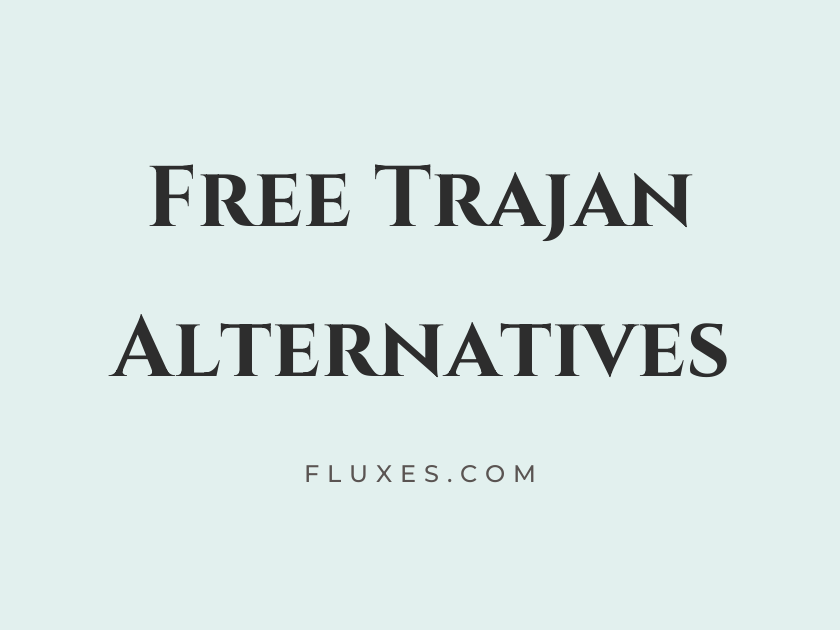
15 Best Free Fonts Alternatives to Trajan
Trajan has anchored a certain kind of visual authority since Adobe first digitized the letterforms cut into the base of Trajan’s Column in Rome nearly two thousand years ago. It shows up on movie posters, wedding invitations, wine labels, university seals, and any design that needs to feel monumental, formal, or carved in stone. Because Trajan itself is a paid Adobe font, designers searching for free alternatives on Google Fonts have a genuinely strong shortlist of classical, inscriptional, and small-caps serif faces that capture the same gravitas without the license fee.
1. Cinzel
Carved in stone, honored through the ages
Cinzel is the closest thing Google Fonts has to a direct answer to Trajan. It was drawn with the same Roman square capital inscriptions in mind, so the proportions, the flared terminals, and the sense of weight are all there. Use it for movie-style titles, diplomas, monograms, or anywhere you need that unmistakable chiseled-in-marble authority.
2. Cinzel Decorative
An empire's legacy, etched for eternity
This is Cinzel’s more theatrical sibling, adding curling swashes and ornamental flourishes to the same classical skeleton. It works best in small doses, a drop cap, a crest, a single line on a wine label, rather than full paragraphs where the decoration can overwhelm the message.
3. Marcellus
Elegance inscribed in every letterform
Marcellus trades the heavy stone-cut drama of Trajan for something calmer and more wearable at everyday sizes. The strokes are even and restrained, which makes it a favorite for boutique branding, spa menus, and invitations that want classical polish without shouting about it. It pairs comfortably with a plain sans body text for contrast.
4. Marcellus SC
THE ARCHITECTURE OF ANCIENT ROME
Marcellus SC
Set Marcellus’s letters in small caps and you get something that reads almost exactly like a formal Roman inscription shrunk down for a book title page. It suits certificates, museum signage, and any header where every letter needs equal, dignified weight.
5. Cardo
A scholarly serif built for classical texts
Cardo grew out of classical philology, designed originally for scholars typesetting Greek, Latin, and Hebrew alongside English. That heritage shows in its sturdy, old-style forms, which lend real credibility to academic papers, historical publishing, and legal documents that need to feel serious rather than decorative.
6. Italiana
Timeless luxury, refined beyond measure
Italiana is thin, tall, and unmistakably upscale, the kind of face you reach for on a perfume box or a five-star hotel’s signage. It has less of Trajan’s bulk but a similar sense of ceremony, and it looks best set large with generous letter spacing rather than crammed into small print.
7. Prata
Distinguished serifs for distinguished occasions
Prata brings a touch more contrast between thick and thin strokes than most of this list, giving it a slightly more modern editorial feel while still nodding to classical proportions. It reads well on book covers and title slides, though it can turn muddy at very small sizes, so save it for headlines.
8. Forum
MONUMENTAL LETTERING FOR GRAND STATEMENTS
Forum
Forum is wide, confident, and unapologetically monumental, closer in spirit to the bold width of ancient Roman signage than the more delicate Trajan revivals on this list. It suits posters, plaques, and any headline that needs to fill space with authority.
9. Bellefair
Ancient inscriptions reimagined for today
Bellefair
Drawing on both Roman and Greek lettering traditions, Bellefair has a slightly warmer, more human touch than the strictly geometric alternatives here. It works nicely for editorial headers and book titles where you want history without austerity.
10. Quattrocento
Solid roman letterforms with lasting presence
Quattrocento
Quattrocento is sturdier and more workaday than the display-oriented faces on this list, which makes it a practical choice when you need Trajan’s classical dignity to extend into body copy or subheads. It was designed as a companion family, so it pairs naturally with its own sans counterpart for a two-font system.
11. Alegreya SC
A CLASSICAL VOICE FOR MODERN PUBLISHING
Alegreya SC
Alegreya’s small caps cut has a literary, slightly humanist feel, less rigid than pure inscriptional revivals but still carrying that formal, capital-letter dignity. It’s a strong pick for book titling, credits, and mastheads that need gravitas without feeling frozen in antiquity.
12. Julius Sans One
Minimal capitals with classical proportions
Julius Sans One
Strip away the serifs and the flare, and you get something like Julius Sans One, a thin geometric caps face whose proportions still echo Roman inscriptional letterforms. It leans modern and minimal, useful for logotypes or wordmarks that want a hint of classical structure without any historical costume.
Add generous letter spacing to any all-caps option; classical inscriptions were cut with air between the letters, and tightening that up undercuts the effect.
Any of these free Google Fonts can stand in for Trajan with genuine confidence, whether the goal is a film-style poster, a formal certificate, or a luxury brand mark that wants to borrow a little of Rome’s authority.